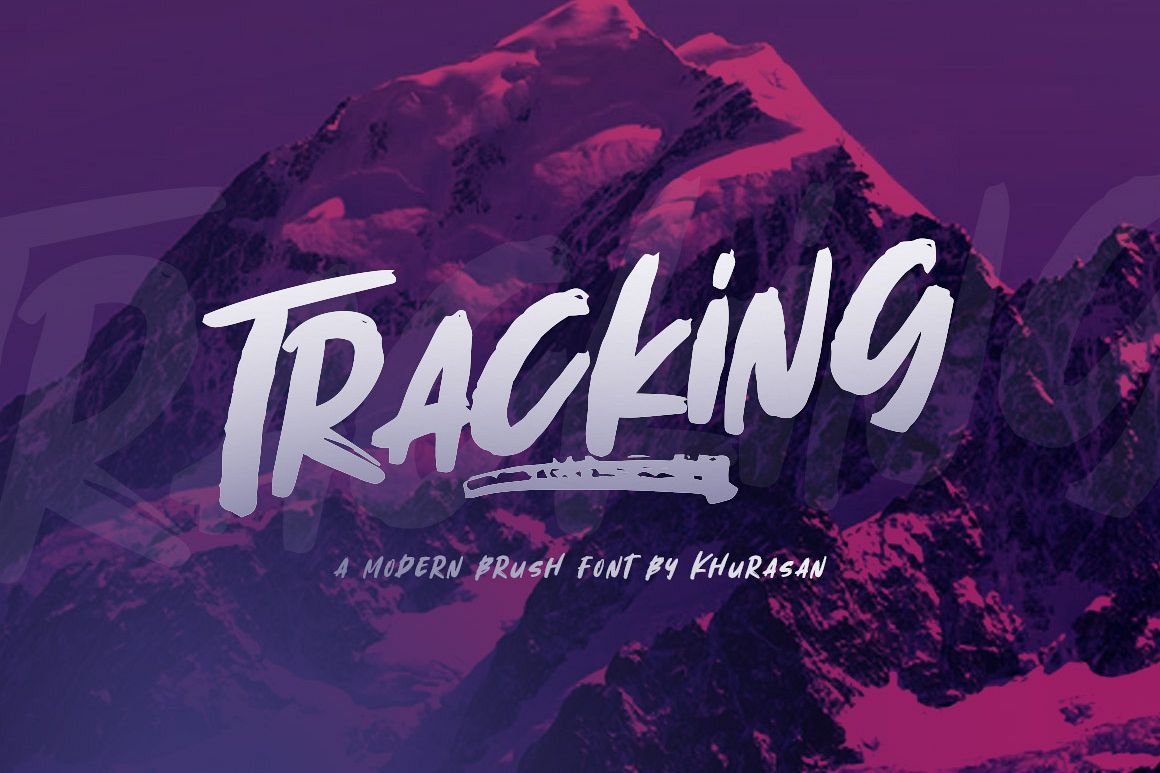
The Tracking is a fresh handwritten font brush, elegant and vintage feel character set. The Tracking font includes a full set capital and lowercase letters, as well as multi-lingual support, currency figures, numerals, & punctuation.